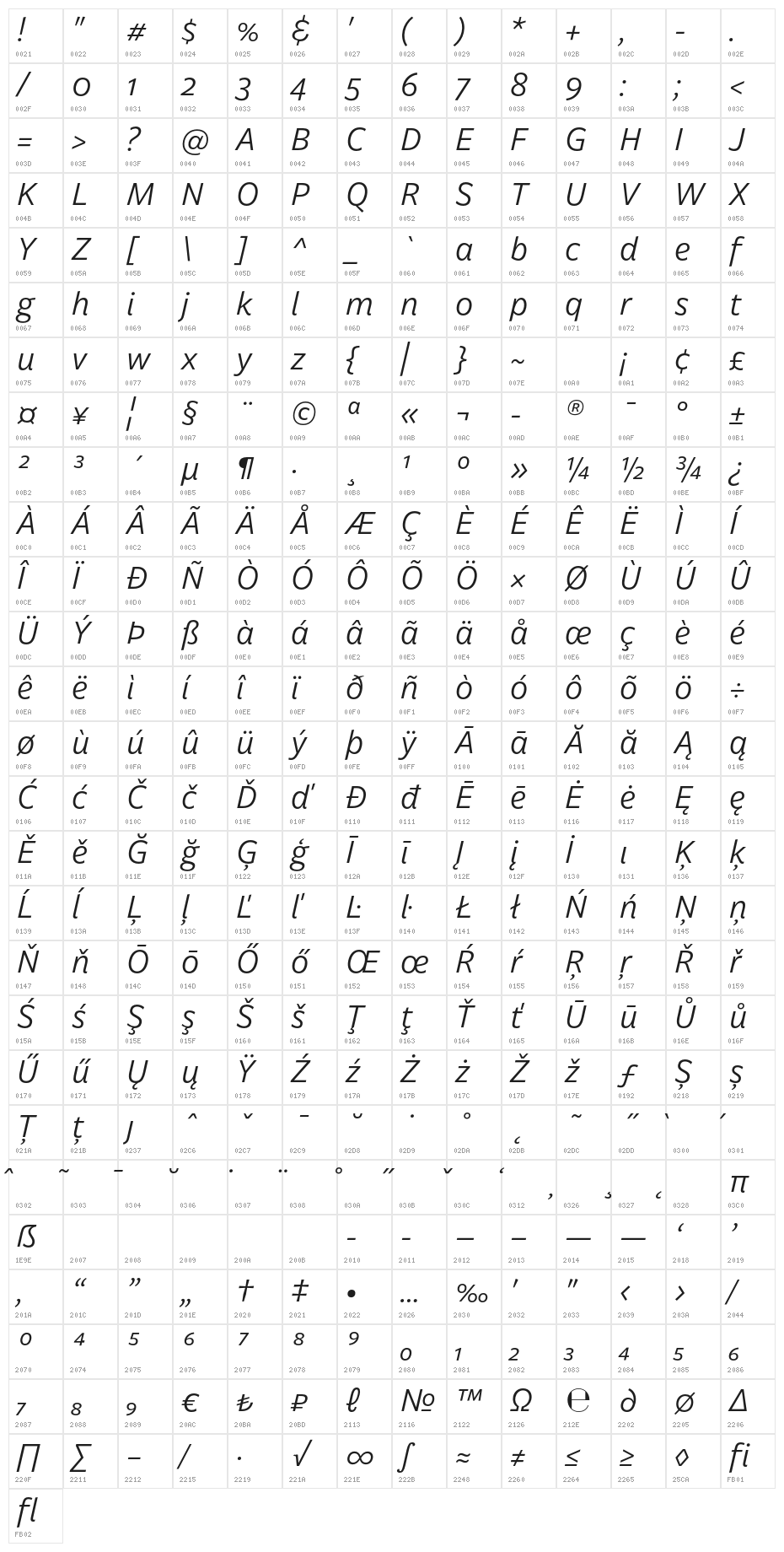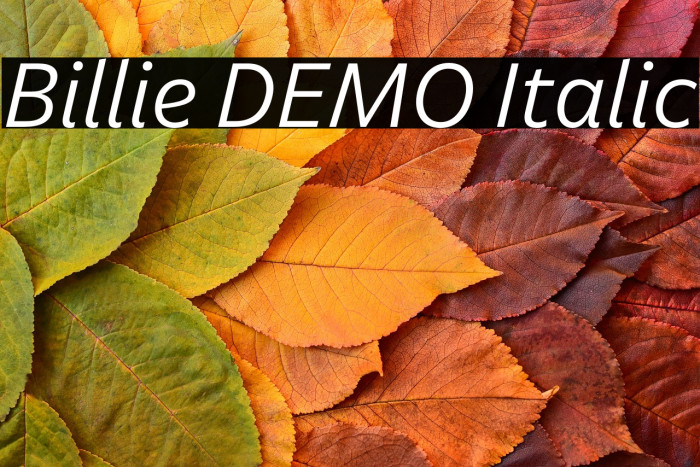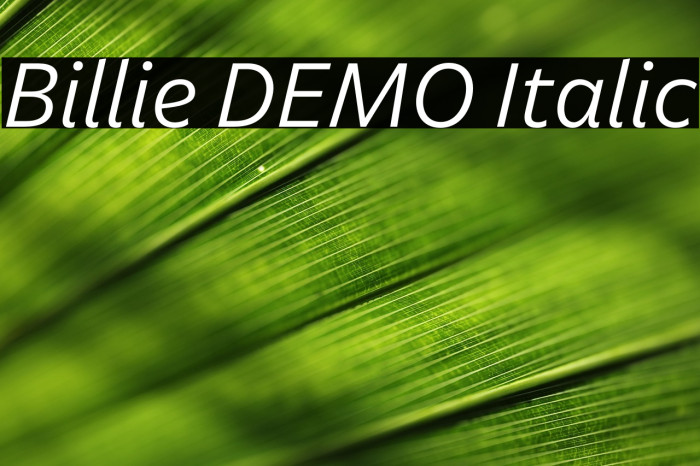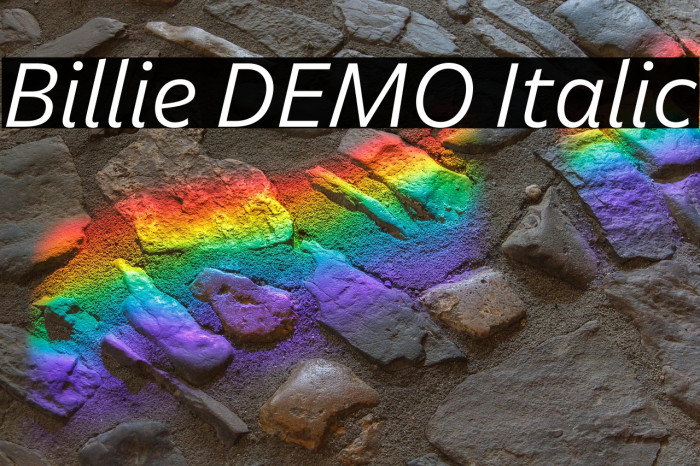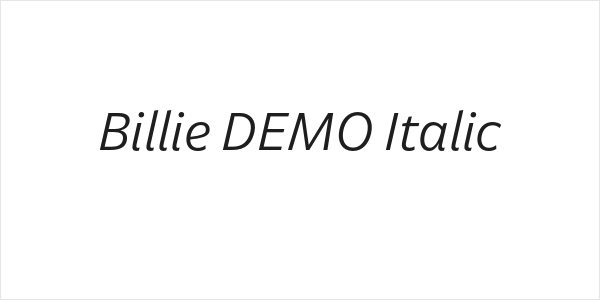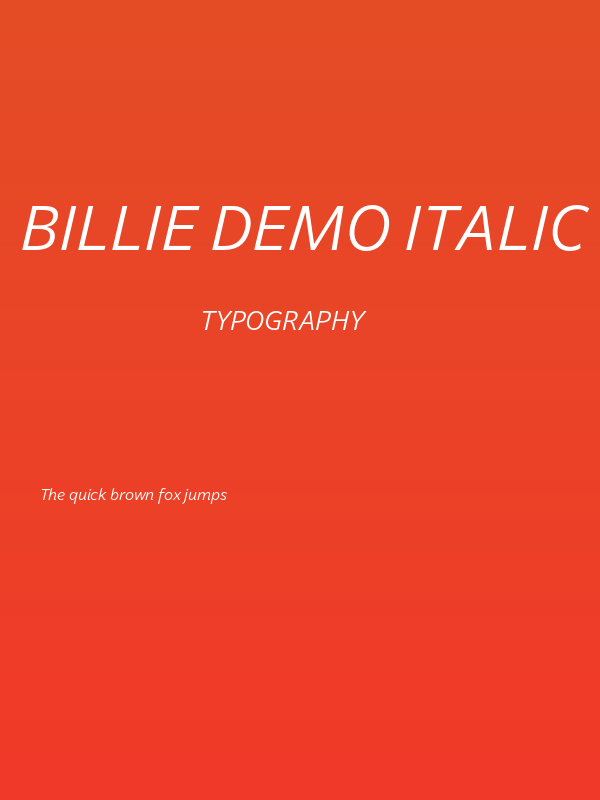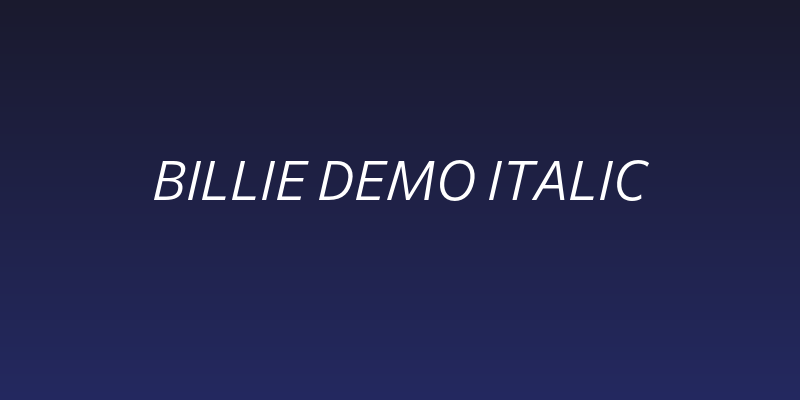
Billie DEMO Italic Font
Billie DEMO Italic Description
This font features a sleek, modern design with a slight italic slant, giving it a dynamic and elegant appearance. The characters are well-proportioned with a consistent stroke width, contributing to a clean and professional look. The uppercase letters are tall and commanding, while the lowercase letters maintain a smooth and flowing style. The numerals are clear and easily distinguishable, making them suitable for various applications. Special characters are included, enhancing the font's versatility. Overall, this typeface is ideal for projects that require a contemporary and sophisticated touch.
| Proposed Projects | Ideal for branding, advertising, web design, and editorial projects that require a modern and sophisticated aesthetic. |